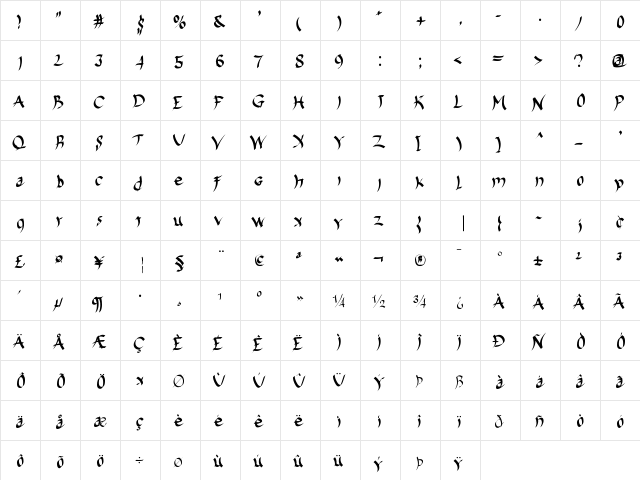
Harakiri Medium
Design Context for Harakiri Typeface
Harakiri is a composed and adaptable typeface that performs quietly and consistently across a wide range of design contexts.